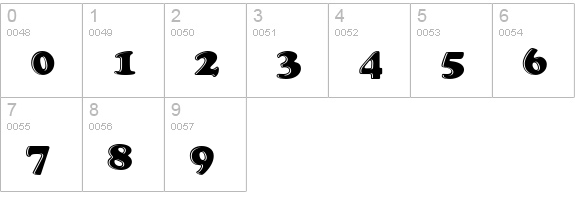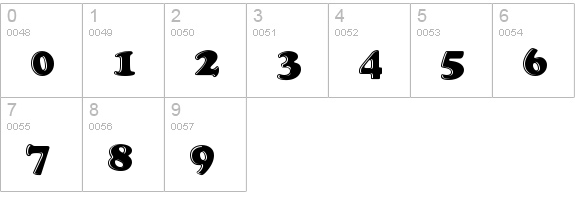
Grease Font Details
Grease font is a stylish and modern typeface that exudes a sense of edginess and creativity. With its bold lines and unique design, Grease font is perfect for making a statement in your designs. Whether you're working on a poster, logo, or website, this font is sure to grab attention and leave a lasting impression. The best part? Grease font is available for free download at FontsMarket.com. You can easily add this eye-catching font to your collection without breaking the bank. So go ahead and give your projects that extra touch of personality with Grease font today!